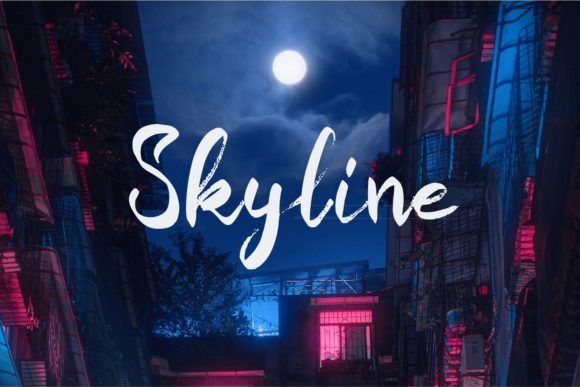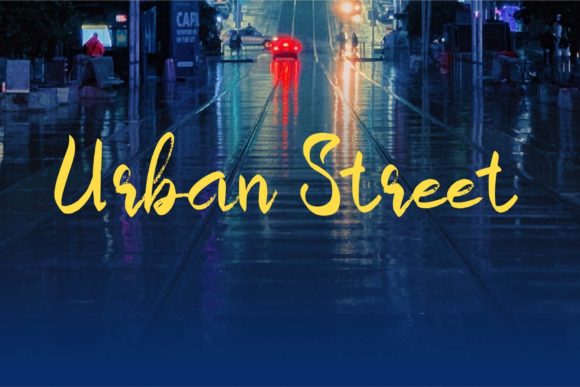
The Magical World of Cyber Rock Font
I’ll never forget the design project that led me to discover Cyber Rock Font. I was working on a whimsical branding campaign for a new tech startup, and I was struggling to find the perfect font to capture their playful yet modern vibe. That’s when I stumbled upon Cyber Rock, a brushed and beautiful script font that instantly transported me to a magical world of creative possibilities.
An Honest Review of Cyber Rock Font
So, what makes Cyber Rock Font so special? Here are some things I love:
- ✨ Unique Brushed Texture: Cyber Rock’s distinctive brushed texture gives it a one-of-a-kind look that’s both modern and whimsical.
- ✅ Excellent Legibility: Despite its script style, Cyber Rock is surprisingly easy to read, even at smaller font sizes.
- 💫 OpenType Features: This font comes with a range of OpenType features, including glyphs, stylistic alternates, and ligatures, which allow for endless creative possibilities.
Of course, no font is perfect, and Cyber Rock has a few small quirks:
- 🤔 Limited Use in Formal Contexts: While Cyber Rock is amazing for creative projects, it may not be the best choice for formal or professional designs, such as business reports or academic papers.
- ⚠️ Some Kerning Issues: As with any font, there may be some kerning issues, especially when using certain character combinations.
The Story Behind Cyber Rock Font
Cyber Rock Font was designed by a team of creatives who wanted to create a font that would capture the essence of modern technology while still being playful and whimsical. Inspired by the world of sci-fi and futuristic design, they crafted a font that’s both cutting-edge and beautiful.
Q: What type of projects is Cyber Rock Font best suited for?
A: Cyber Rock Font is perfect for creative projects, such as branding, packaging, advertising, and social media graphics. It’s also great for personal projects, like invitations, posters, or blogs.
Q: Is Cyber Rock Font easy to read?
A: Yes, Cyber Rock Font is surprisingly easy to read, even at smaller font sizes. Its unique brushed texture and modern design make it a great choice for designs that require both style and legibility.